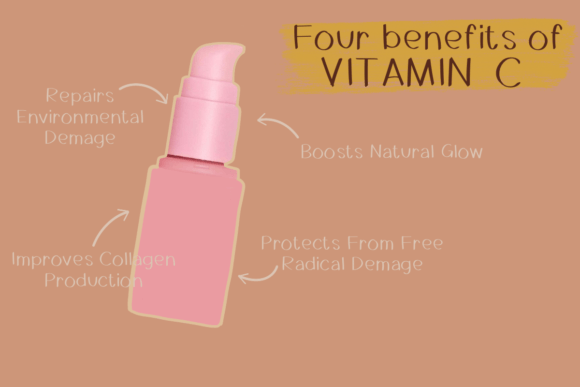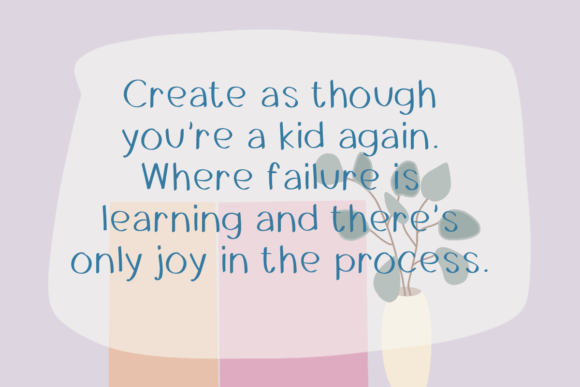
Beauty Font: The Perfect Handwriting Font for Crafty Ideas
Are you a designer or crafter looking for a font that can add a touch of elegance and whimsy to your projects? Look no further than the Beauty Font! This adorable handwriting font is perfect for a wide range of crafty ideas, from DIY crafts to digital designs. In this article, we’ll take a closer look at the Beauty Font, its features, and how you can use it to take your projects to the next level.
What is Beauty Font?
Beauty is a cute handwriting font that features beautiful and well-balanced characters. It’s a carefully crafted font that is designed to be both visually appealing and easy to read. The font’s unique and playful style makes it perfect for adding a personal touch to your projects.
Key Features of Beauty Font
- Handwritten style: The Beauty Font has a lovely handwritten style that gives it a personal and unique touch.
- Well-balanced characters: Each character in the font is carefully crafted to be well-balanced and visually appealing.
- Cute and playful: The font has a cute and playful style that makes it perfect for crafty ideas and DIY projects.
- Easy to read: Despite its playful style, the Beauty Font is easy to read and understand.
Uses of Beauty Font
The Beauty Font is versatile and can be used for a wide range of crafty ideas, including:
- DIY crafts: Use the Beauty Font to add a personal touch to your DIY crafts, such as scrapbooking, card making, and journaling.
- Digital designs: The font is perfect for digital designers who want to add a touch of elegance and whimsy to their designs.
- Handmade products: Use the Beauty Font to create labels, packaging, and branding for your handmade products.
- Social media graphics: The font is perfect for creating social media graphics, such as quotes, posters, and flyers.
Tips for Using Beauty Font
Here are some tips for using the Beauty Font effectively:
- Use it for headings: The Beauty Font is perfect for headings and titles, as it adds a touch of elegance and whimsy to your text.
- Pair it with other fonts: Experiment with pairing the Beauty Font with other fonts to create a unique and visually appealing combination.
- Use it for quotes: The font is perfect for creating quote graphics, as it adds a touch of elegance and sophistication to your text.
- Experiment with colors: The Beauty Font looks great in a variety of colors, so don’t be afraid to experiment and find the perfect color for your project.
In conclusion, the Beauty Font is a versatile and adorable handwriting font that is perfect for a wide range of crafty ideas. Its unique and playful style makes it a great addition to any design or DIY project. With its well-balanced characters and easy-to-read style, the Beauty Font is a great choice for designers and crafters who want to add a touch of elegance and whimsy to their projects.